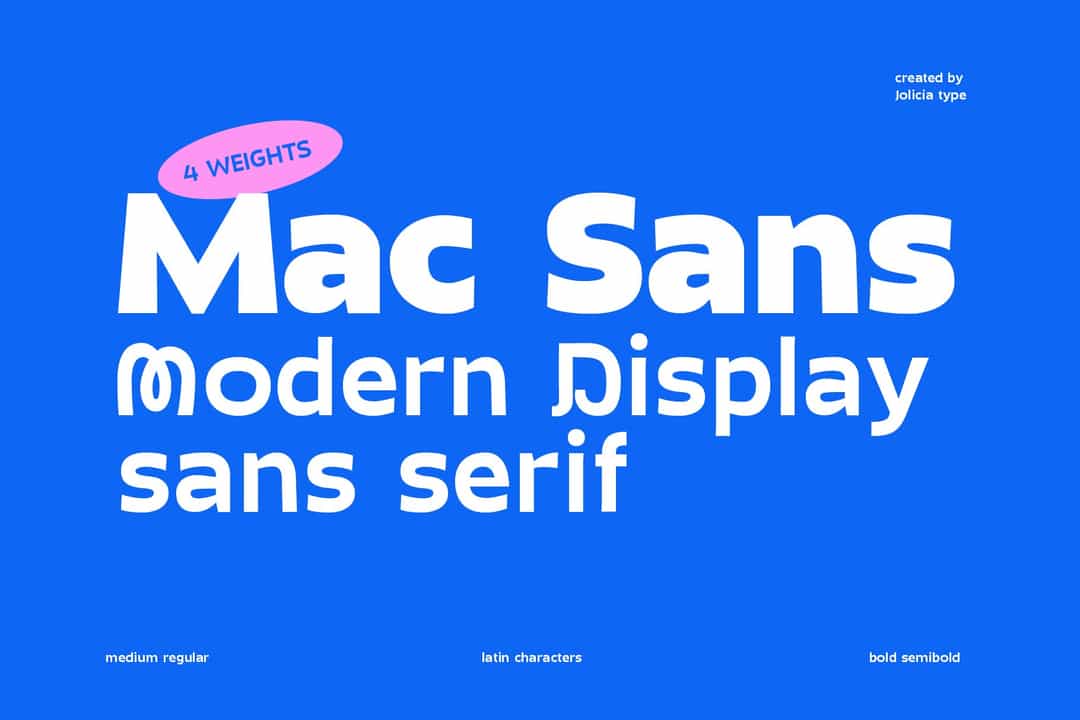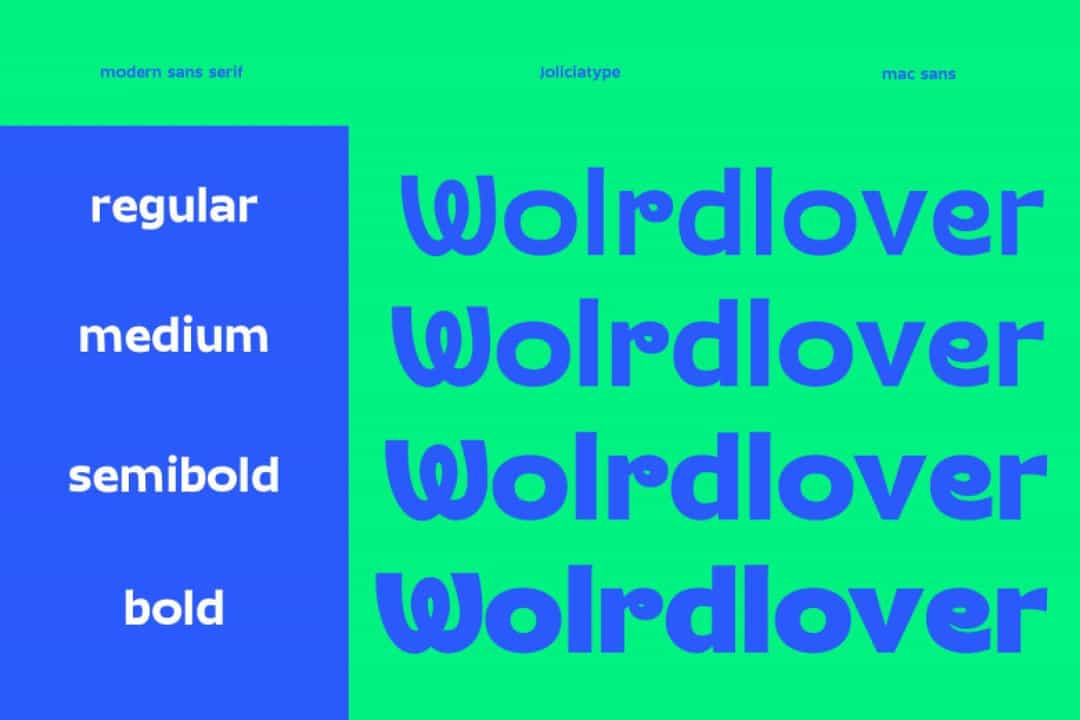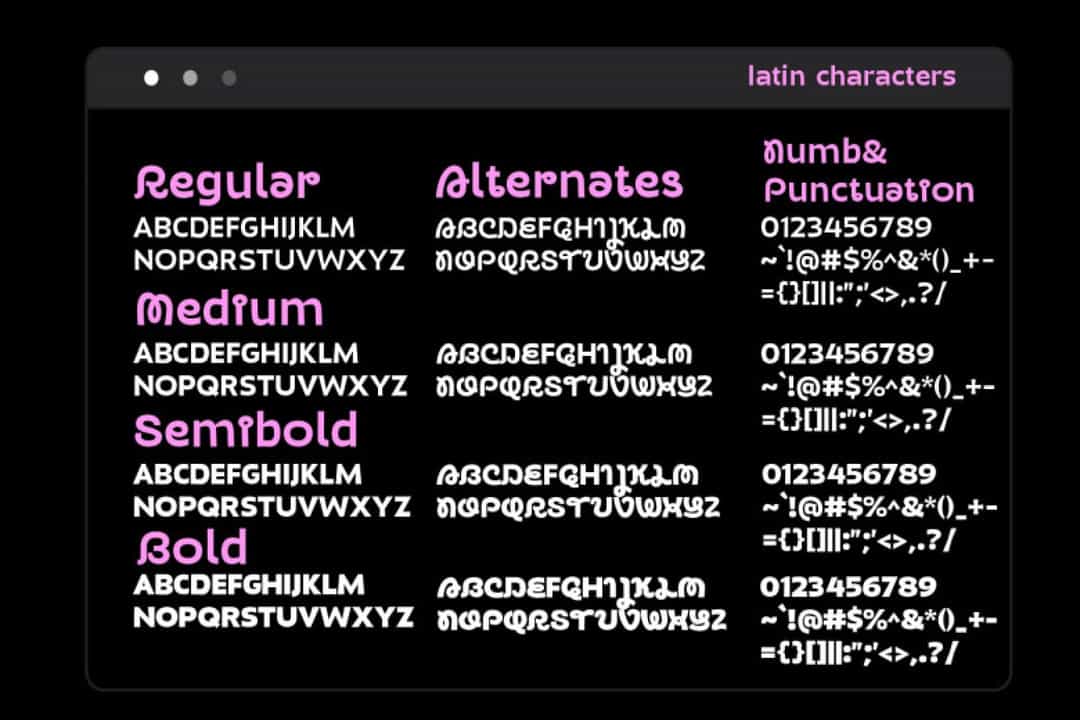
Introduce Mac Sans: the Ideal Balance Between Strength and Uniqueness. Elevate your design work by employing Mac Sans, a modern sans serif font which effortlessly combines powerful authority with an eye-catching, distinctive aesthetic that stands out from its peers.